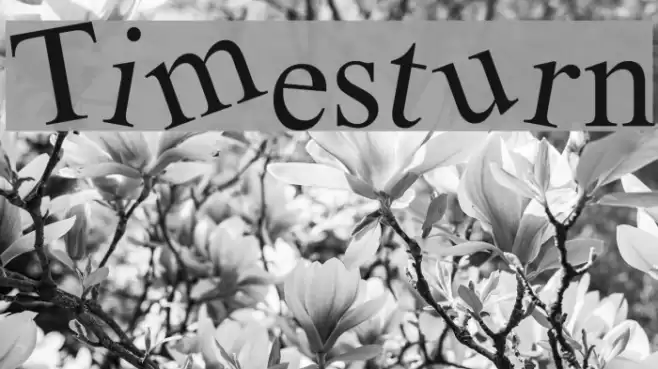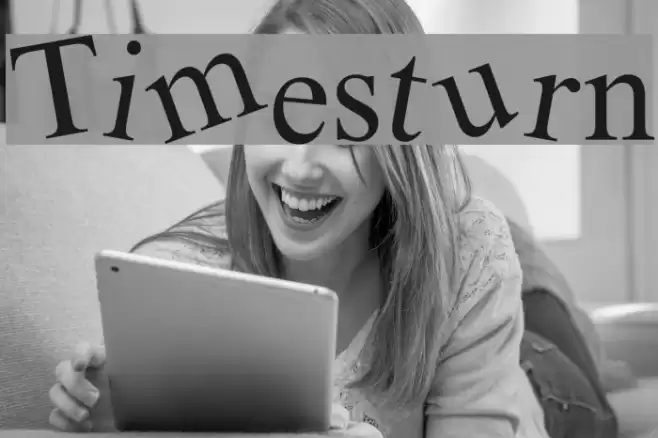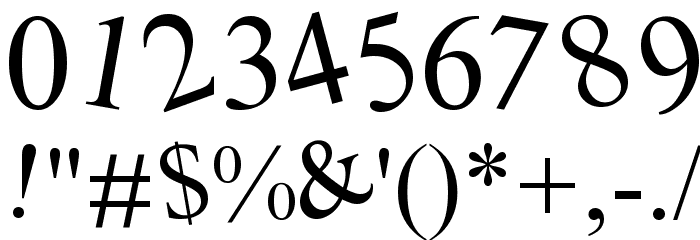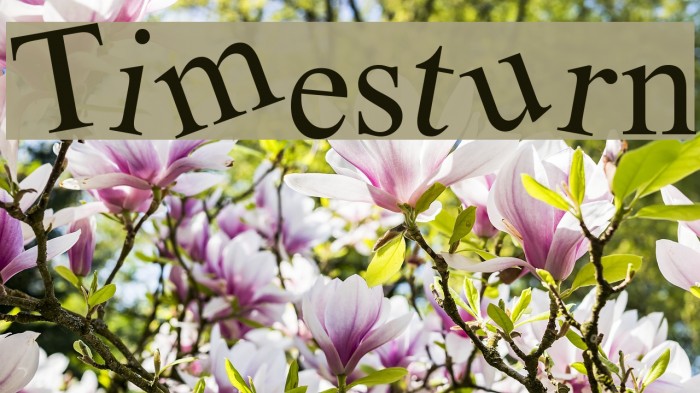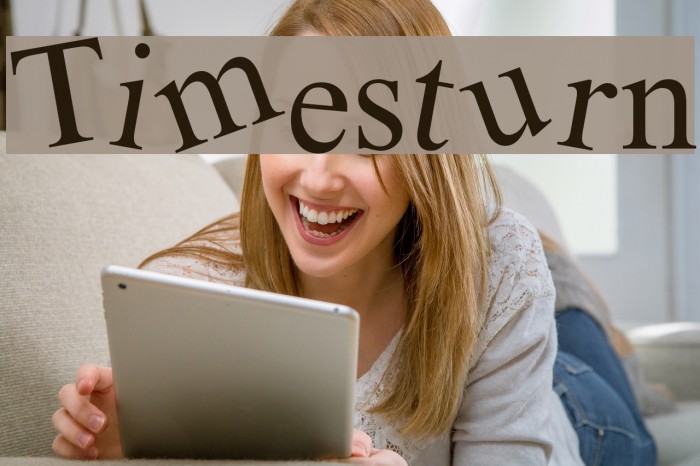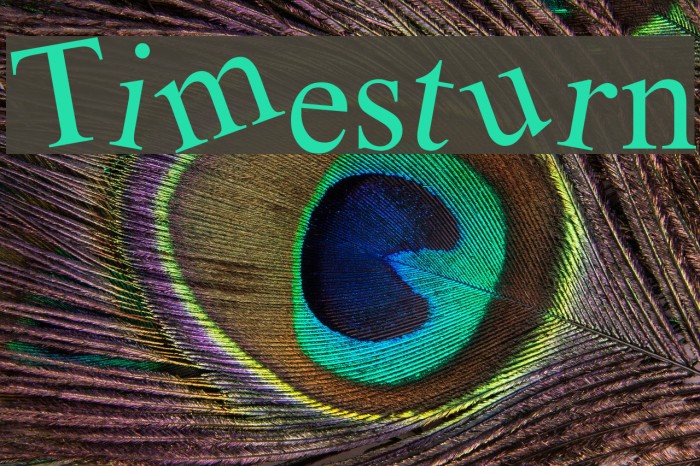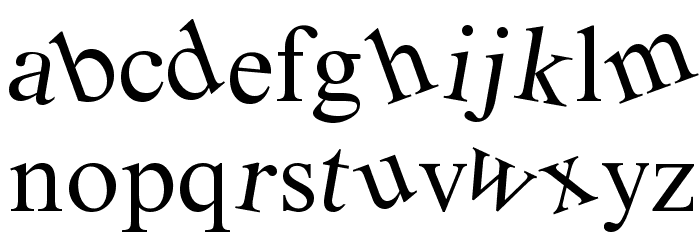
Timesturn Font
Timesturn Description
This font exhibits a classic serif style with a playful twist. The letters are slightly tilted, giving a dynamic and whimsical appearance. The serifs are pronounced, adding a traditional touch, while the overall slant introduces a sense of movement and energy. The uppercase letters are bold and commanding, while the lowercase letters maintain a consistent flow. Numbers are clear and well-defined, making them easily legible. Special characters are included, maintaining the same playful yet classic aesthetic. This font is versatile, suitable for both formal and creative applications.
A classic serif font with a playful, tilted design from Uncategorized fonts.
- Proposed Projects: Ideal for book covers, creative posters, branding materials, and editorial design.
- Overall Style: Classic